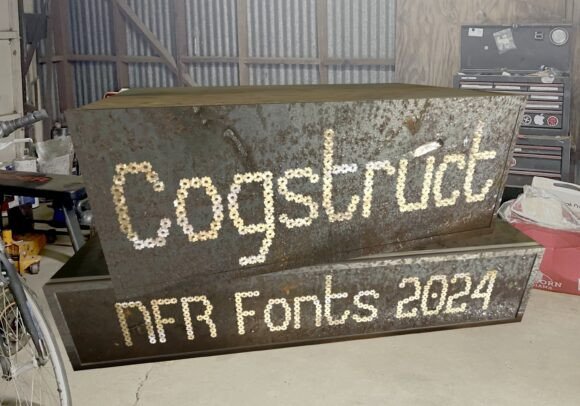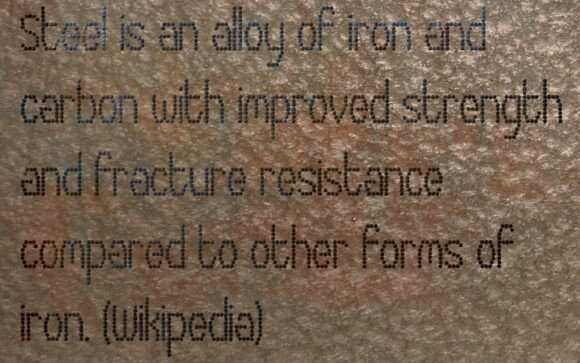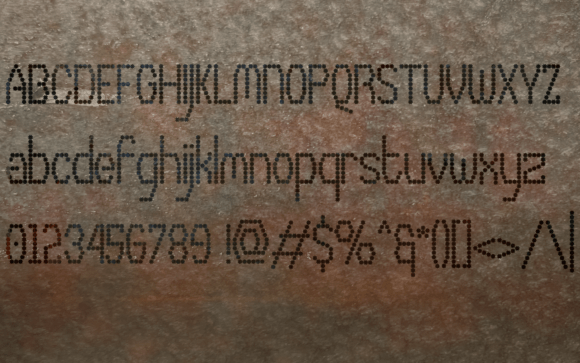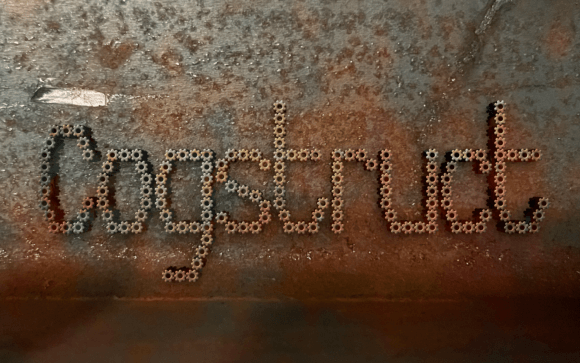
Introducing Cogstruct: The Ultimate Steampunk Font for Industrial Inspiration
Are you tired of using the same old fonts for your designs? Look no further! We’re excited to introduce Cogstruct, a brand-new, steampunk-themed font that’s sure to breathe life into your mechanical world. This innovative font design features letters made up of multiple small interlinked gears, cleverly combining the rustic charm of gears and old-timey factories to create a typeface that’s reminiscent of bustling industry.
A Font that’s Mechanically Marvelous
Cogstruct is more than just a font – it’s a statement piece. Each letter is intricately designed to resemble a complex mechanism, with gears and cogs that appear to be interlocking. The result is a typeface that’s both visually striking and thought-provoking. Whether you’re working on a project that requires a nod to the industrial or mechanical realm, Cogstruct is the perfect choice.
Two Styles to Suit Your Vision
We’re offering two versions of Cogstruct to suit your design needs: a filled version with solid letters, and an unfilled edition featuring a puncture in each gear. The filled version is perfect for making a bold statement, while the unfilled edition adds a touch of elegance and sophistication. Both styles retain excellent readability, making them ideal for a wide range of applications.
Perfect for Industrial, Mechanical, and Steampunk-Inspired Projects
Cogstruct is specifically designed for projects that require an industrial or mechanical theme. Whether you’re working on a steampunk-inspired design, a machinery-related project, or an engineering-themed piece, this font is sure to impress. The versatility of Cogstruct makes it an excellent choice for designers and crafters who want to add a unique touch to their work.
Readability and Legibility
While Cogstruct is classified as a display/decorative font, it doesn’t compromise on readability. Our samples demonstrate that the font retains a clear legible quality, making it perfect for use in a variety of applications, from headlines to body text. This is a testament to the careful craftsmanship that has gone into designing Cogstruct.
A Unique Addition to Your Font Collection
Cogstruct is a rare find in the world of fonts – there are very few other options available that feature a font made of gears. By choosing Cogstruct, you’ll be adding a unique and exclusive element to your design that sets you apart from the competition. Whether you’re a designer, crafter, or DIY enthusiast, this font is sure to inspire your creativity.
Applications and Uses
Cogstruct can be used in a wide range of applications, including:
- Steampunk-inspired designs
- Industrial and mechanical-themed projects
- Engineering and manufacturing-related designs
- Headlines and titles for blogs and websites
- Signage and display boards
- Packaging and branding materials
| Font Name | Cogstruct Font |
| Author | NFR Fonts |
In conclusion, Cogstruct is an exceptional font design that’s sure to bring a touch of industrial charm to your designs. With its unique gear-based design, versatility, and excellent readability, this font is perfect for designers and crafters who want to add a mechanical or steampunk-inspired element to their work. Choose Cogstruct today and discover a world of creative possibilities!